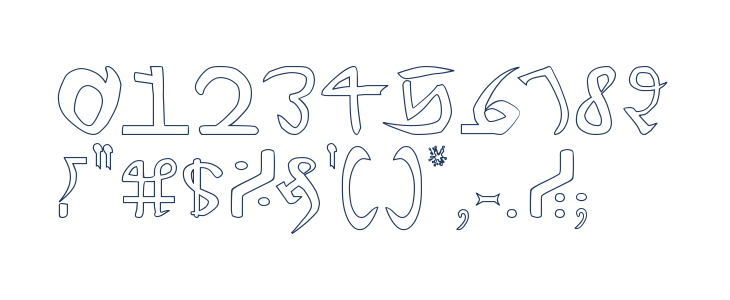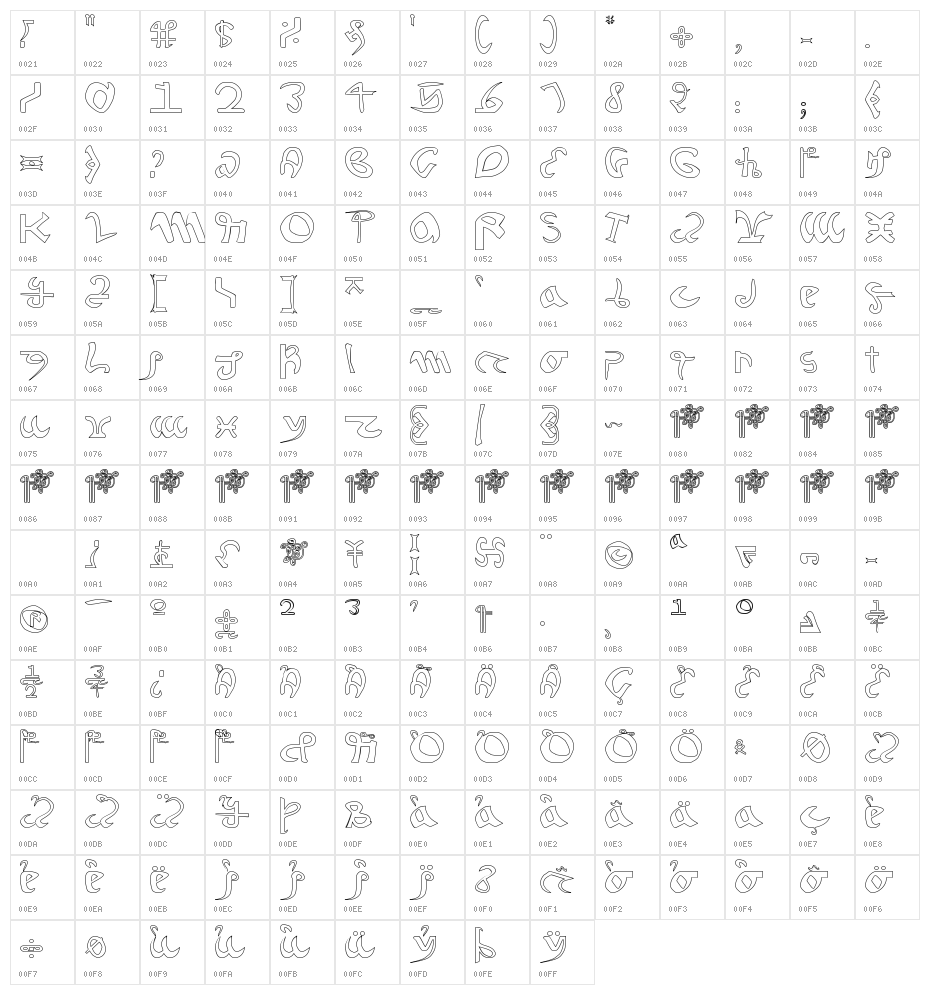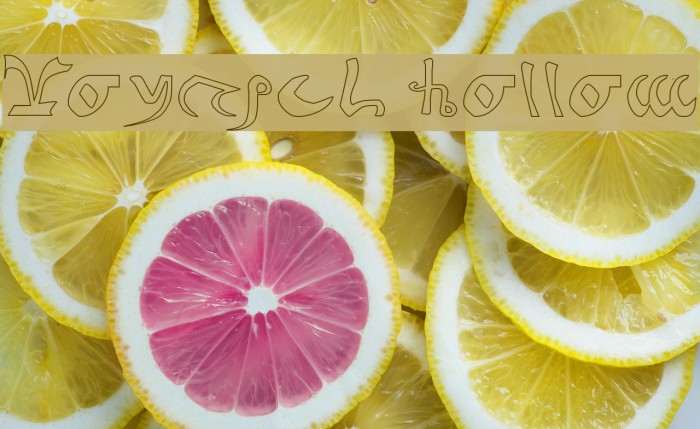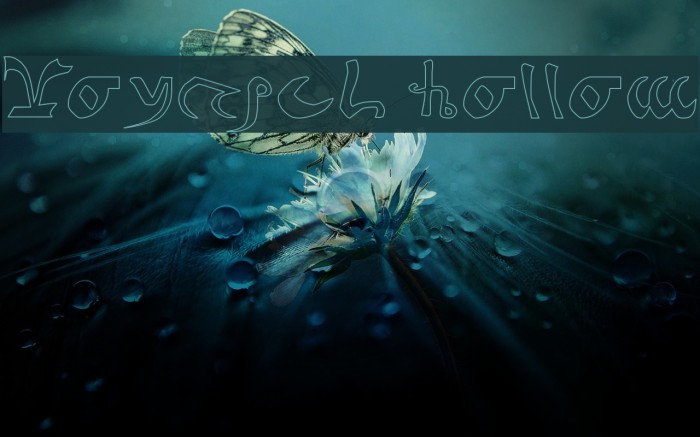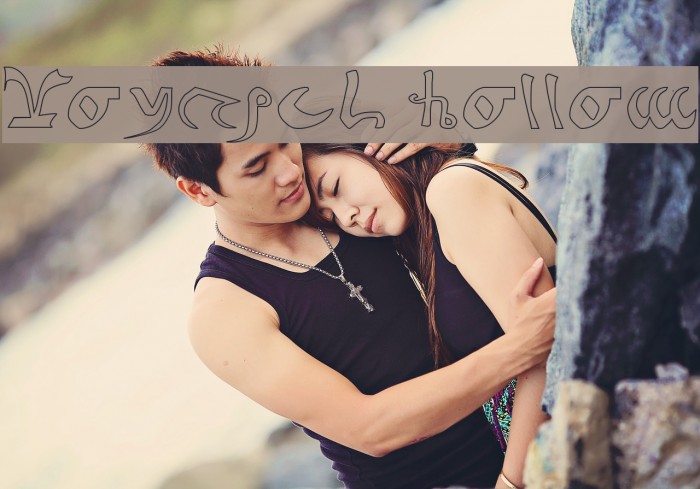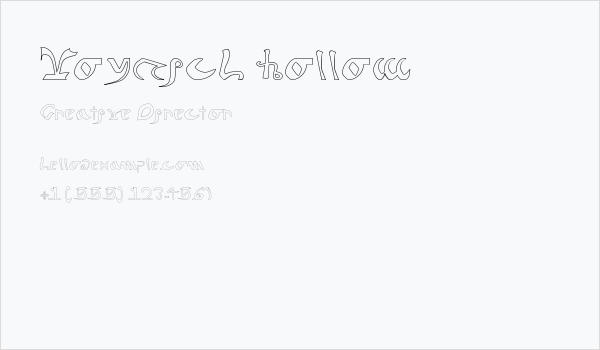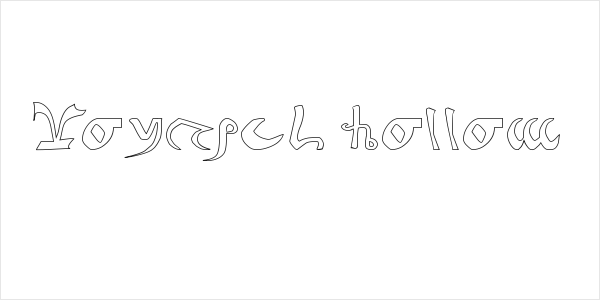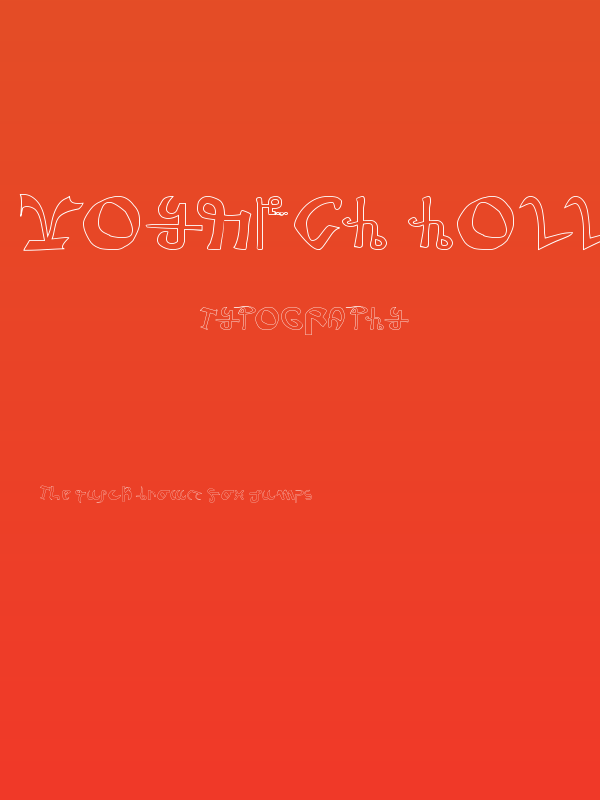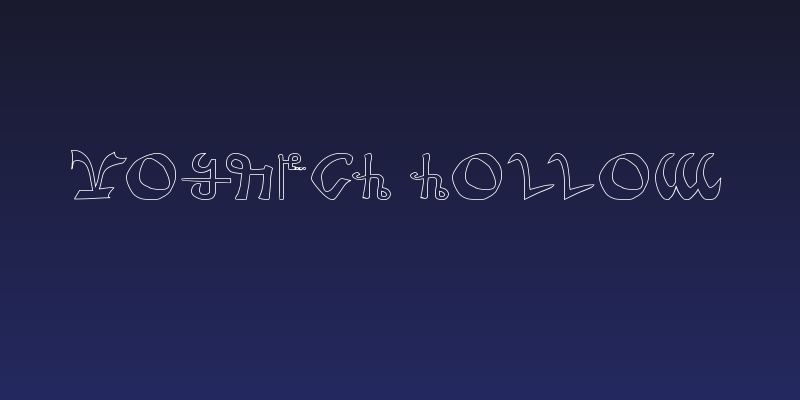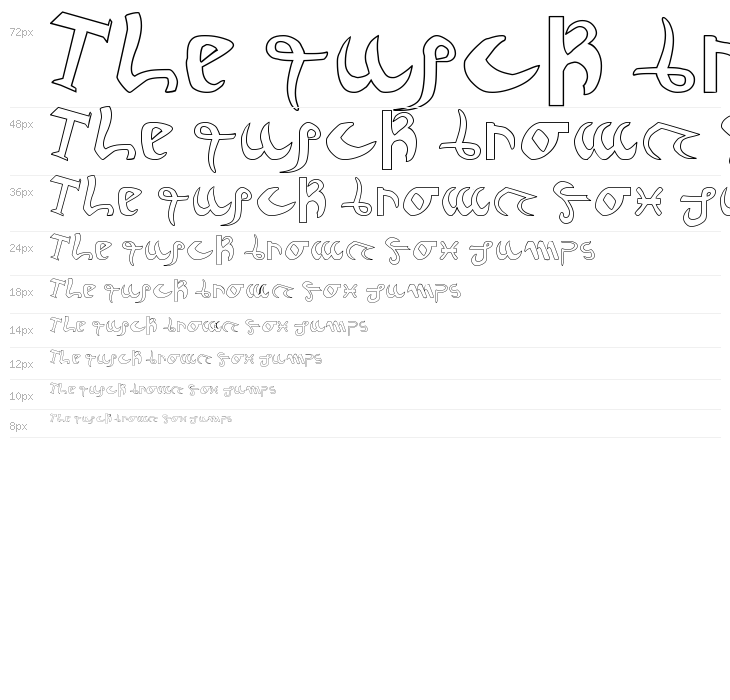
Voynich Hollow Font
Voynich Hollow Description
This font features a unique and mysterious design, reminiscent of ancient scripts or coded languages. The characters are hollow, with a flowing, organic style that suggests movement and fluidity. Each letter and number has a distinct, artistic flair, with curves and angles that create an enigmatic appearance. The font's design is both decorative and functional, making it suitable for creative projects that require a touch of mystery or fantasy. The special characters are equally intriguing, adding to the overall mystique of the font.
| Overall Style | Mystical, Enigmatic, Artistic |
| Use Case | Logos, Posters, Creative Titles |
| Proposed Projects | Ideal for fantasy book covers, escape room branding, or mysterious event invitations. |